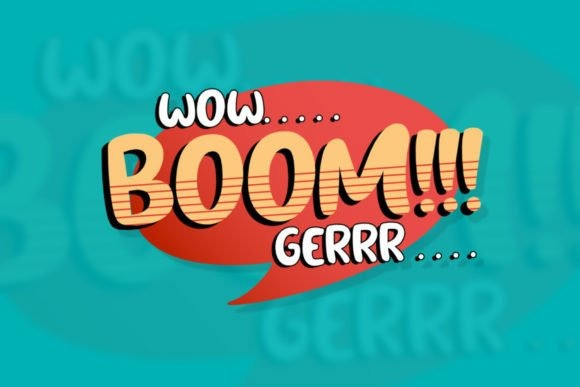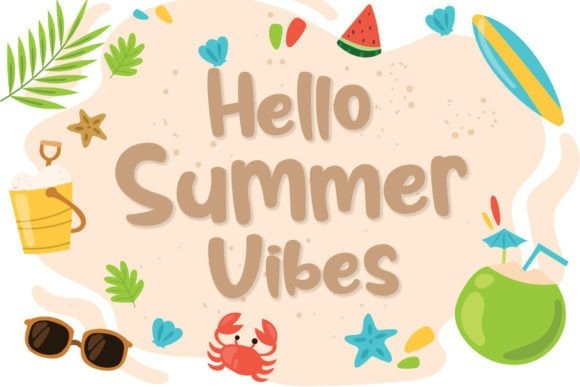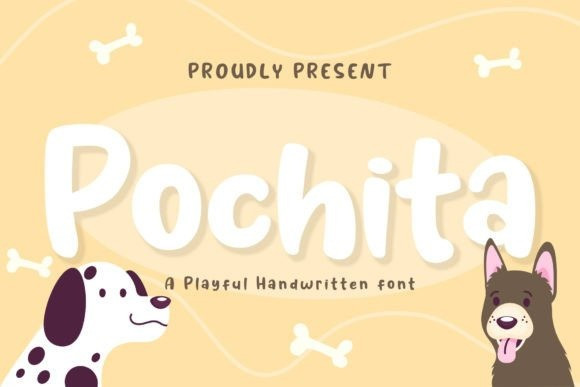
Pochita Playful Font
Pochita Playful Font is a natural playful handwritten font that is perfect for design projects such as logos, branding, packaging, social media posts, and more. The font has a unique style that will make your designs stand out from the rest.
It is perfect for those who want to add a personal touch to their designs. The font is easy to read and has a friendly feel to it.